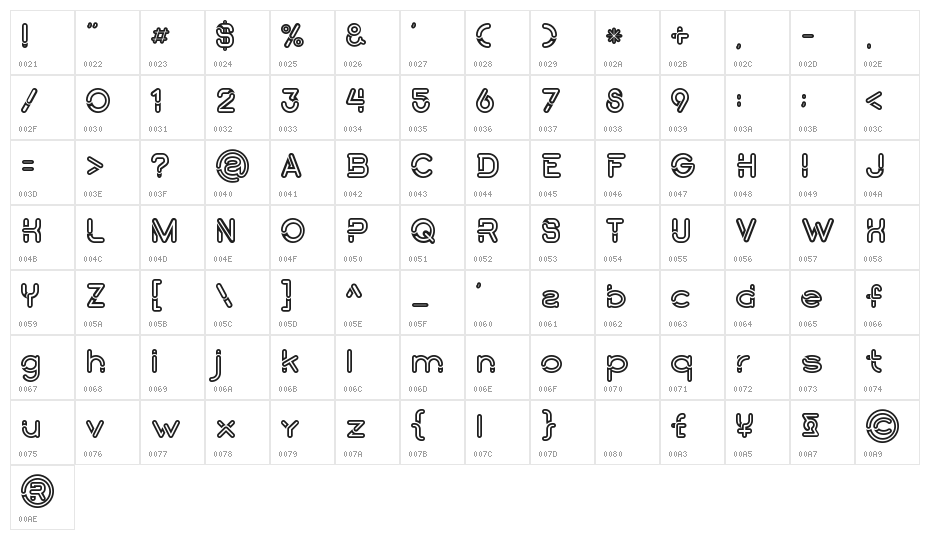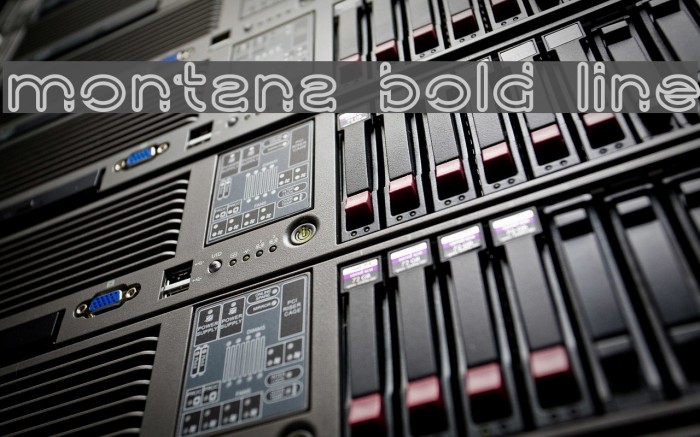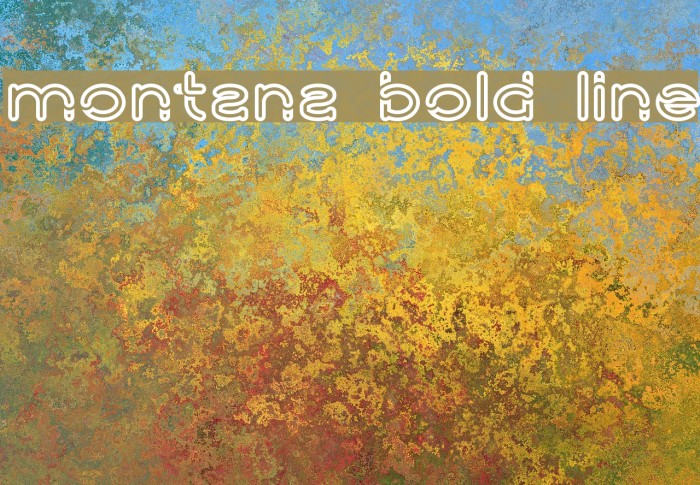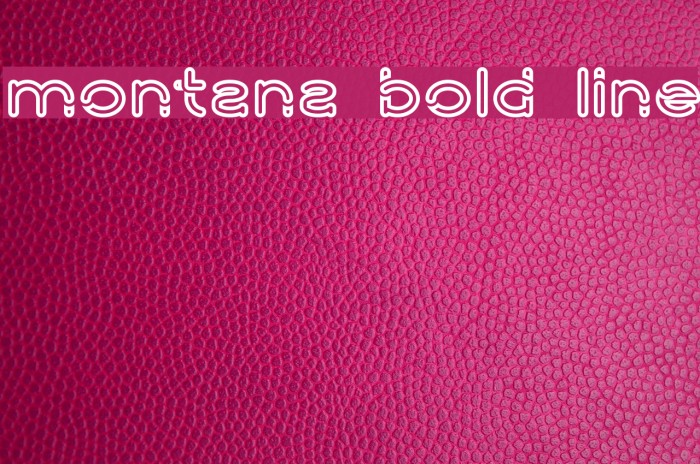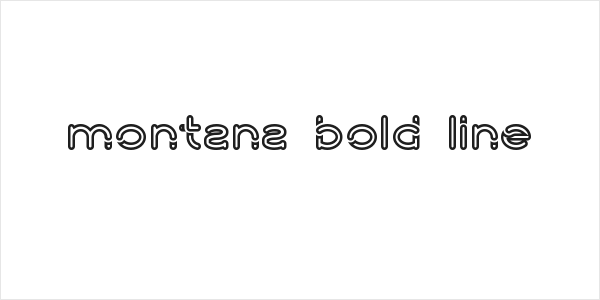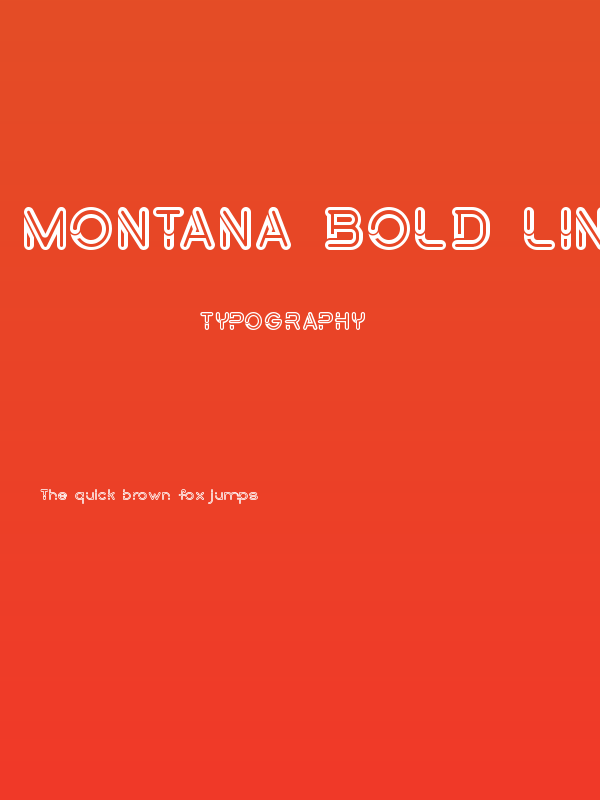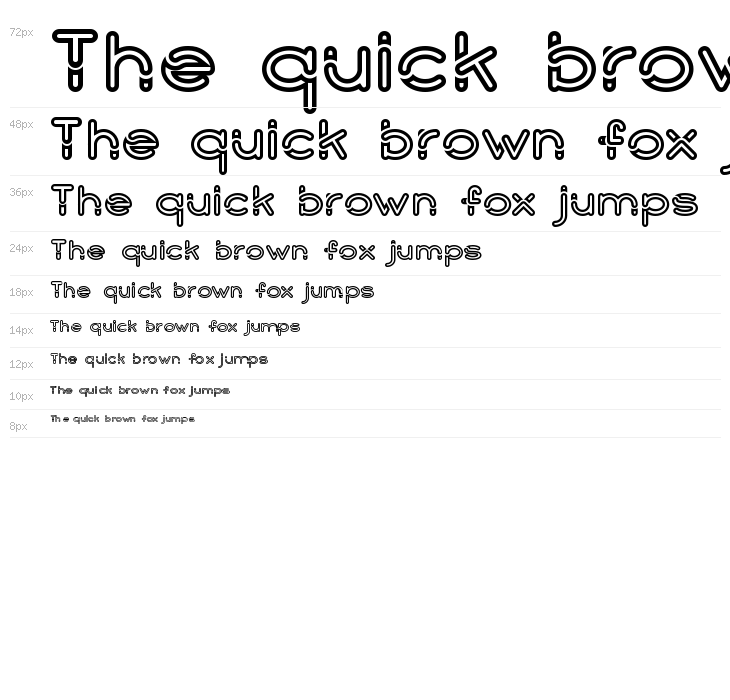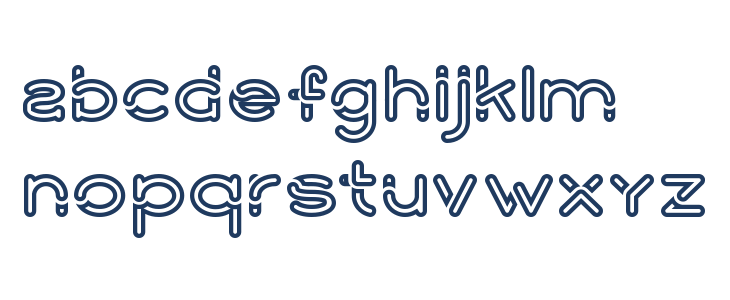
montana bold line Font
montana bold line Description
This font features a bold, outlined style with a modern and playful aesthetic. Each character is constructed with a double-line effect, creating a sense of depth and dimension. The uppercase and lowercase letters maintain a consistent width, providing a uniform appearance. The numbers and special characters follow the same design principles, ensuring cohesion across all glyphs. The font's geometric shapes and clean lines make it suitable for contemporary designs, adding a unique touch to any project.
| Proposed Projects | Ideal for branding, posters, headlines, and any design requiring a modern and eye-catching typeface. |